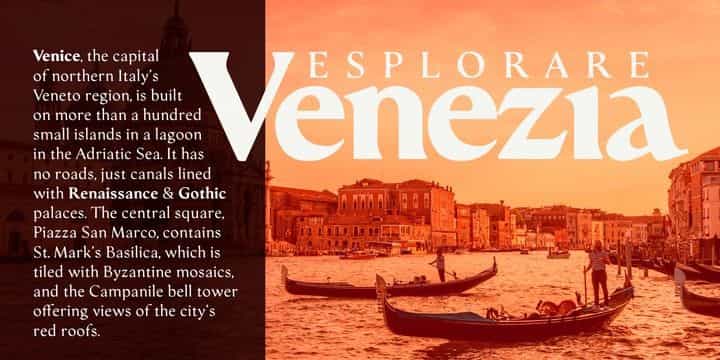
Serat Font is a new bright serif that has quickly gained its popularity among the designers. Subtle slab serif curves and harmonious, continuous lines make this typeface perfect for any season. Serat is the best font to use for beautiful branding, logos, body text, headings, quotes, and much more.